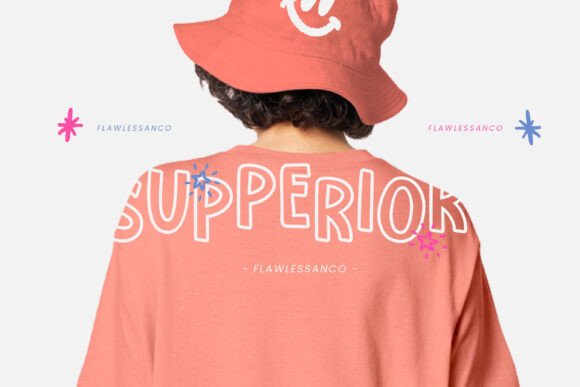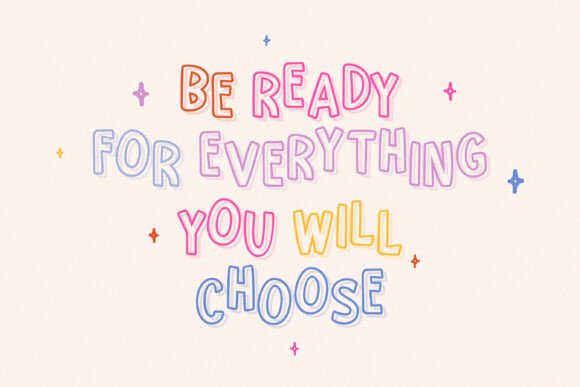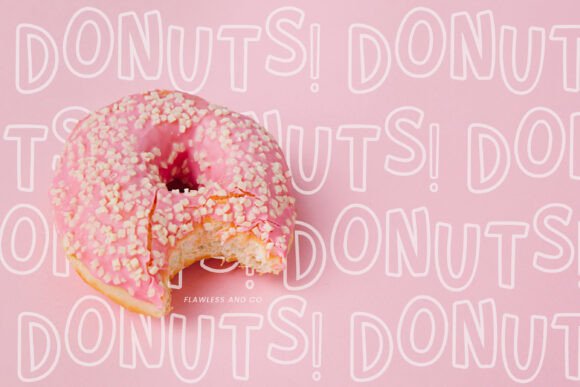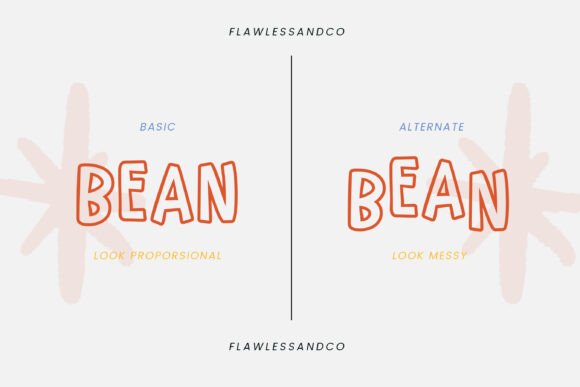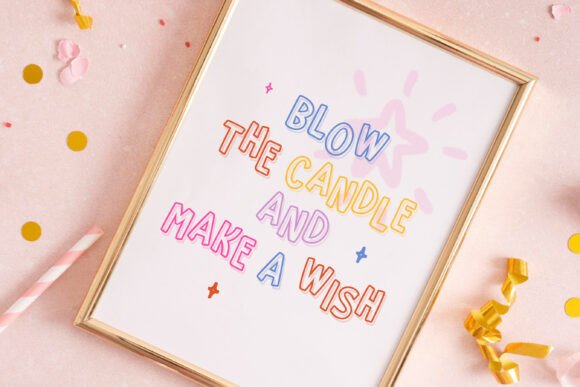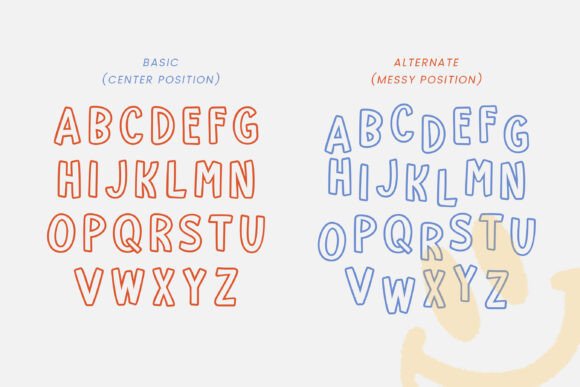
Introduction to Hustled Emerald Font
Do you remember the rush of excitement you felt as a child, pouring over a favorite comic book or watching a cartoon with bright, playful graphics? For many creatives, that spark never fades – and for those who design for kids, the Hustled Emerald Font is a dream come true.
This charming sans serif font brings a fun and energetic vibe to your designs, making it the perfect addition to any creative project. With its hand-drawn aesthetic and unique character, the Hustled Emerald Font is suitable for children’s books, comic titles, creative branding, posters, social media graphics, and playful packaging. Whether you’re a seasoned designer or just starting out, this versatile font is a valuable resource that can help take your designs to the next level.
Key Features of Hustled Emerald Font
- Perfect for designers seeking a modern and eye-catching font to elevate their creative project, with a unique blend of sophistication and playfulness.
- Comes with a comprehensive character set, including uppercase and lowercase letters, numbers, and punctuation marks, ensuring seamless typography and readability.
Honest Review: Hustled Emerald Font
I recently stumbled upon the Hustled Emerald Font while searching for a unique design resource to elevate my creative project. The free download was a pleasant surprise, and I was eager to test its quality.
Here’s what I liked about the Hustled Emerald Font:
- ✨ High-quality typography: The font’s clarity and precision made it perfect for both digital and print designs.
- ✨ Versatility: I was able to use the font in various creative ways, from headings to body text, and it looked great every time.
- ✨ Transparent background: This feature allowed me to easily overlay the font on top of images or use it as a standalone element.
- ⚠️ Limited font weights: The font only comes in a few weights, which might be a problem for projects that require more variation.
- ⚠️ Not ideal for tiny text: The font’s design works well at larger sizes, but it can become pixelated when used at very small sizes.
Overall, I was impressed with the Hustled Emerald Font. While it has its limitations, its unique style and high-quality design make it a valuable addition to any design resource collection.
Use the Hustled Emerald Font in conjunction with other design elements to create a cohesive look. Experiment with different font sizes, colors, and styles to add depth and visual interest to your design. Consider pairing the font with a neutral background to let its unique design shine.
The Hustled Emerald Font is ideal for creative projects, such as infographics, social media graphics, and marketing materials. Its high-quality design and transparent background make it a versatile design resource for various industries and applications.
What is the recommended font size for the Hustled Emerald Font?
The recommended font size for the Hustled Emerald Font varies depending on the specific use case. However, as a general rule of thumb, it’s best to use font sizes between 12 and 48 points for optimal readability. You can adjust the font size according to your design requirements and preferences.